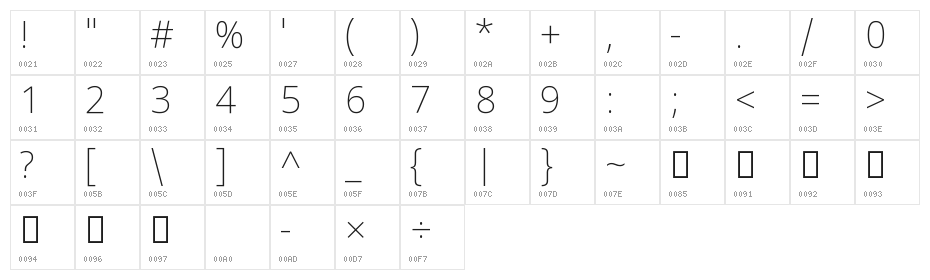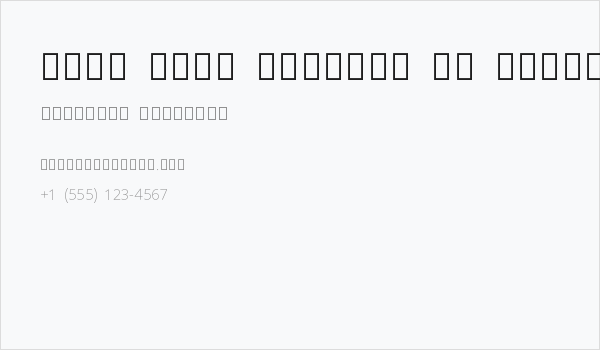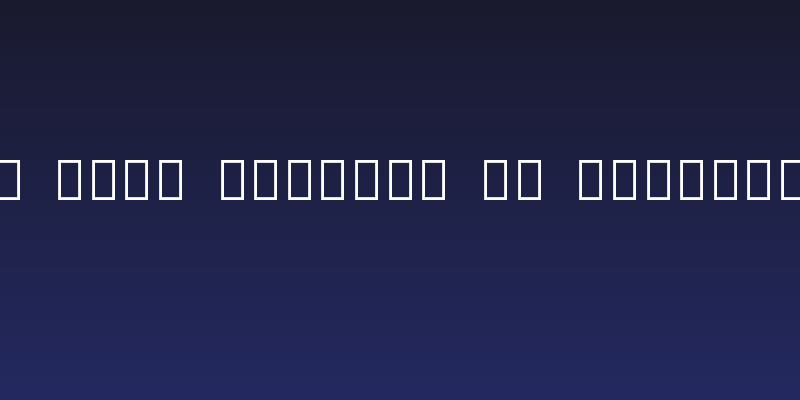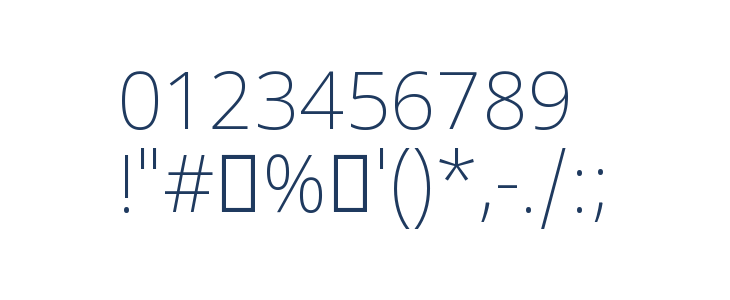
Noto Sans Sinhala UI ExtraLight Font
Noto Sans Sinhala UI ExtraLight Description
This font presents a clean and modern aesthetic with its extra-light weight, making it ideal for minimalist designs. The characters are well-proportioned with a uniform stroke width that contributes to its legibility and clarity. The sans-serif style ensures a contemporary look, suitable for digital interfaces and print media alike. The spacing between characters is normal, providing a balanced and readable text flow. The font's simplicity and elegance make it versatile for various applications, from user interfaces to editorial design.
| Use Case | Headlines, Body text, Logos, User Interfaces |
| Proposed Projects | This font is perfect for user interfaces, digital content, minimalist branding, and editorial layouts. |